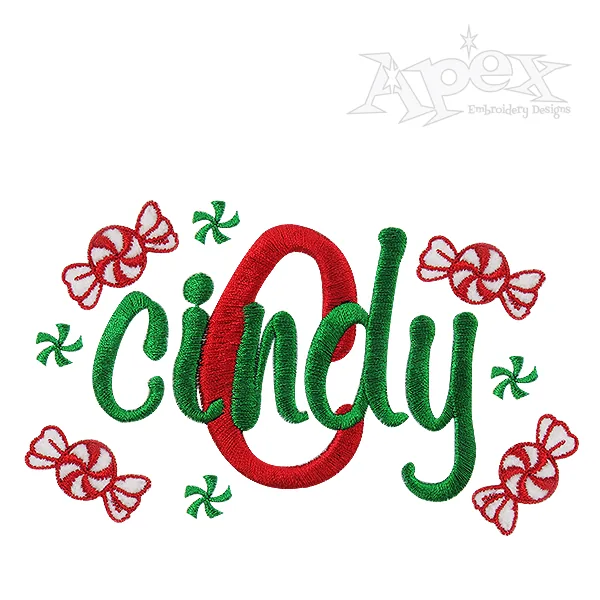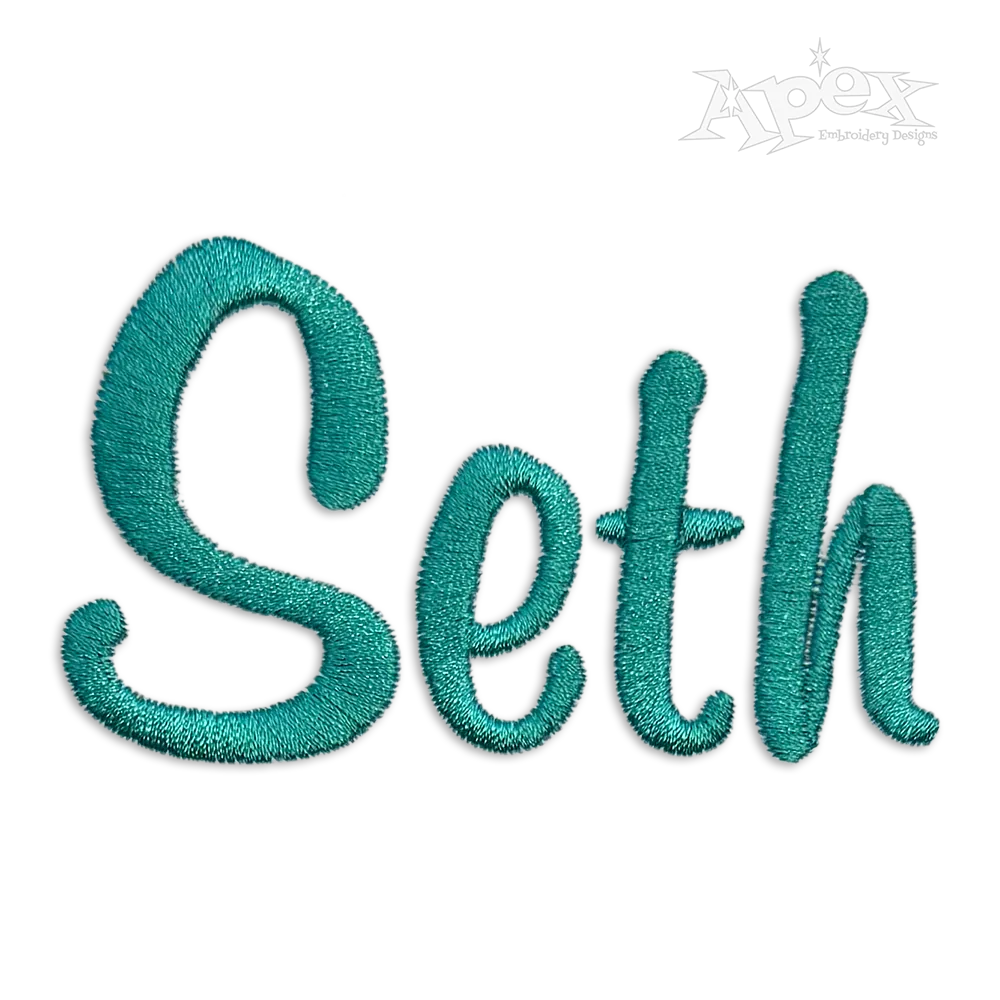
Casual Embroidery font with candy Christmas designs
There is an effortless, heartwarming nostalgia to the holidays that lives in handwritten recipe cards, vintage glass candy jars, and the excited chatter of children decorating gingerbread houses. When digitizing the Casual Peppermint Embroidery Font, our artisan goal was to translate that relaxed, joyful spirit directly into thread. We built a thick, unapologetically bold letterform that feels approachable and cheerful, designed to be embellished with sweet, spinning peppermint medallions. Whether adding a playful seasonal touch to holiday pyjamas or custom monogramming a set of heirloom family linens, this alphabet radiates handmade charm and cozy winter cheer.
- 1-Inch Font Set: A compact, beautifully proportioned bold alphabet ideal for smaller items, pocket monograms, and children's apparel.
- 2-Inch Font Set: A substantial, statement-making size engineered to stand out on chunky knits, stocking cuffs, and blankets.
- Peppermint Candy Accents: A multi-piece collection of standalone peppermint designs provided in various sizes to seamlessly complement the lettering.
- Dual Stitch Styling: The candy accents are digitised in both rich, dimensional fill-stitch versions and charming non-fill line-work variations, giving you ultimate creative control over density and layering.
Project Ideas for Casual Peppermint Embroidery Font
- Bespoke Holiday Sleepwear: Monogram matching flannel pyjamas, loungewear sets, and waffle-knit thermal tops for the whole family on Christmas morning.
- Heirloom Stockings & Tree Skirts: Embroider bold, clear names across velvet, quilted cotton, or burlap stocking cuffs flanked by swirling candy accents.
- Festive Kitchen & Table Linens: Stitch cheerful words or single-letter monograms onto linen cocktail napkins, holiday runner borders, and red-and-white striped tea towels for holiday hosting.
- Personalized Santa Sacks & Totes: Create enduring memories with customized heavyweight canvas gift sacks and treat bags designed for seasonal gifting.
- Holiday Aprons & Baking Sets: Decorate matching parent-and-child chef aprons for cookie-making traditions, using the line-work candies for a subtle touch or the solid fills for punchy vibrancy.
- Diagonal Napkin Corner: Position a bold initial nestled beside a miniature peppermint at a 45-degree angle, 1.5 to 2 inches from the bottom-right corner hem of luxury table linens.
- Stocking Cuff Center: Align names horizontally across the central axis of the cuff, leaving comfortable breathing room above and below the plush seamline.
- Center Chest on Holiday Loungewear: Center the monogram or seasonal phrase 3 inches down from the collar seam on fleece pullovers or children’s sweatshirts for an iconic, relaxed aesthetic.
- Apron Bib & Pocket Flaps: Embroider single initials accented with a pair of candies directly above the front utility pockets or centered on the chest bib.
Casual Peppermint Embroidery Font Craft & Letterform Details
True artisan digitizing requires balancing personality with structural reliability. The letterforms of this casual alphabet are intentionally stout and generous, sporting softly rounded terminals and open, friendly counters that resist gathering or bunching on stretchy knits. Every stroke has been plotted with a dense, foundational lattice underlay that props the lush top satin stitches above high-pile fabrics, ensuring your lettering remains crisp and distinct without sinking into fleece or terrycloth.
The companion peppermint motifs are digitized with meticulous attention to stitch direction. By radiating stitch angles outward from the core of each pinwheel stripe, the candies catch the light dynamically, producing a reflective shimmer that mirrors real ribbon candy. By pairing these tactile, full-coverage candy fills with their airy open-line counterparts, you can effortlessly balance stitch weight across lightweight batiste and heavy-duty canvas alike.